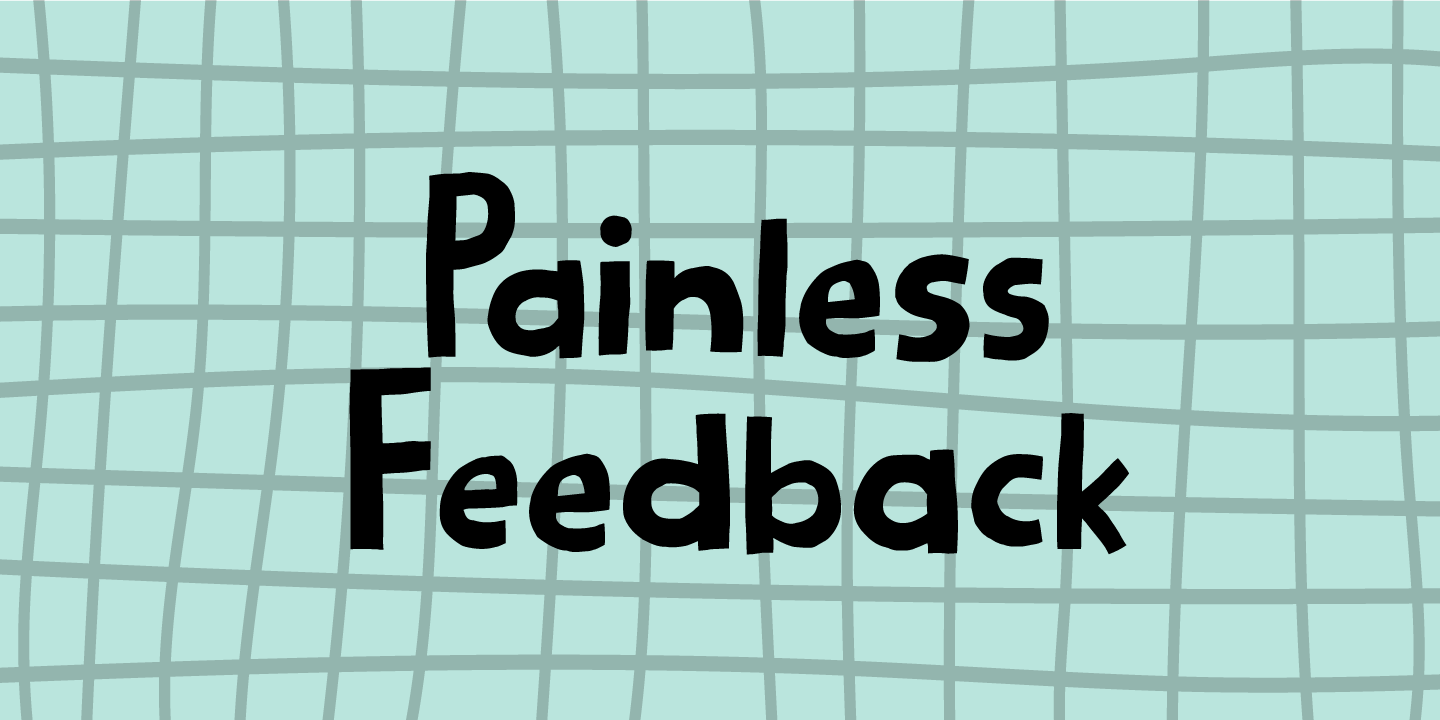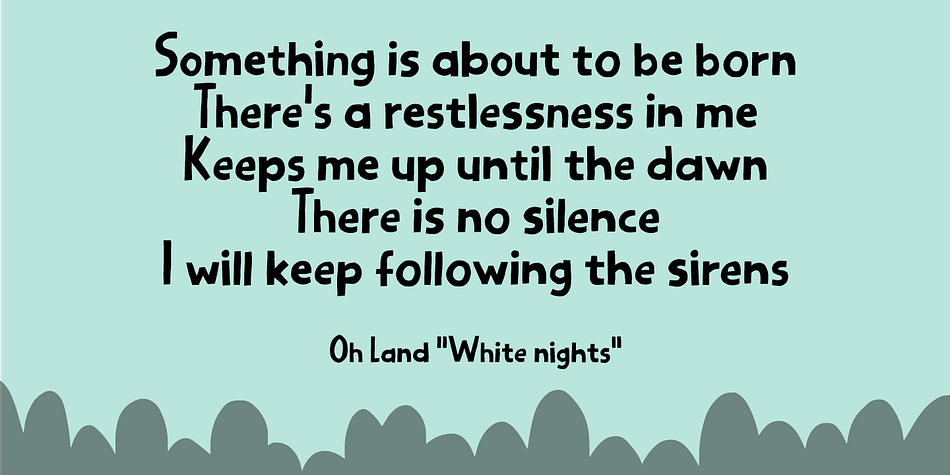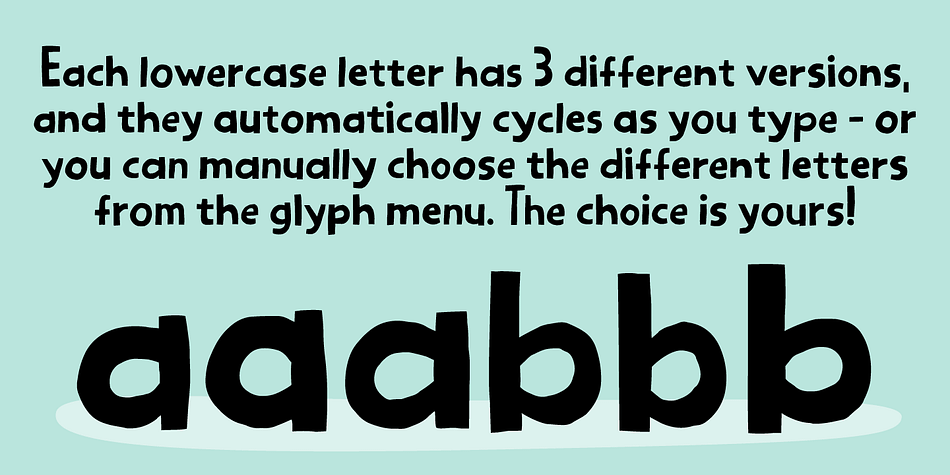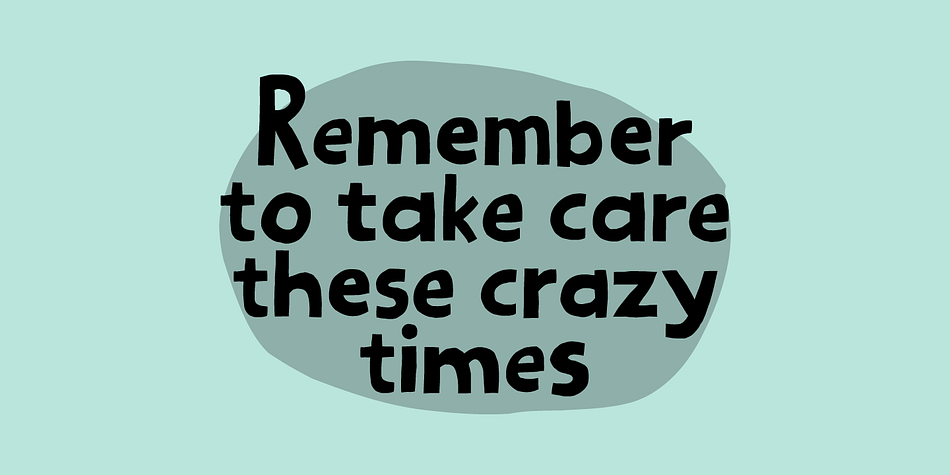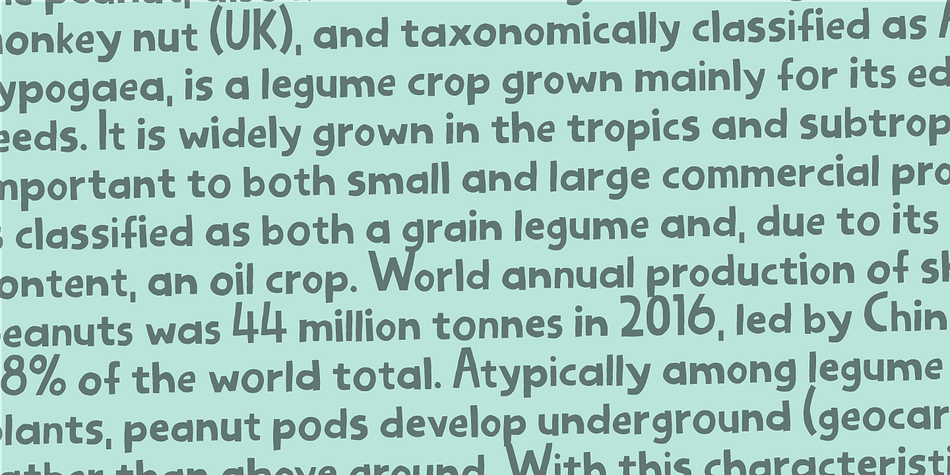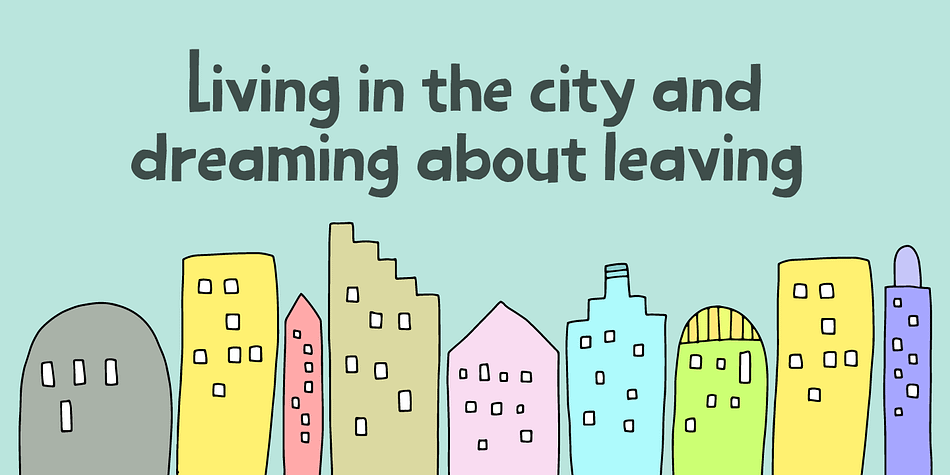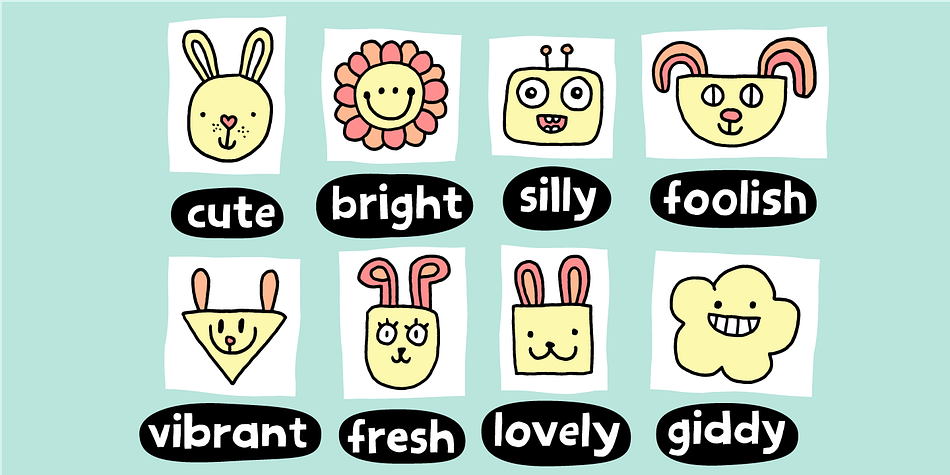
Painless Feedback
Designed by Jakob Fischer, Painless Feedback is a hand display font family. This typeface has two styles and was published by Bogstav.
Here you go…a handmade sans font without much of surprise…actually, this is how I draw letters with my eyes closed…well, almost! I wanted to make a font with letters that were pretty obvious, but had that handmade look that I love so much. The result is this really painless font - it won’t hurt or scare anyone, but it could help making your handmade things (such as posters, postcards, flyers, books and alike) come more alive!
Anyway, I’ve added 3 different versions of each lowercase letter…just to add some spice to the painlessness of the font!